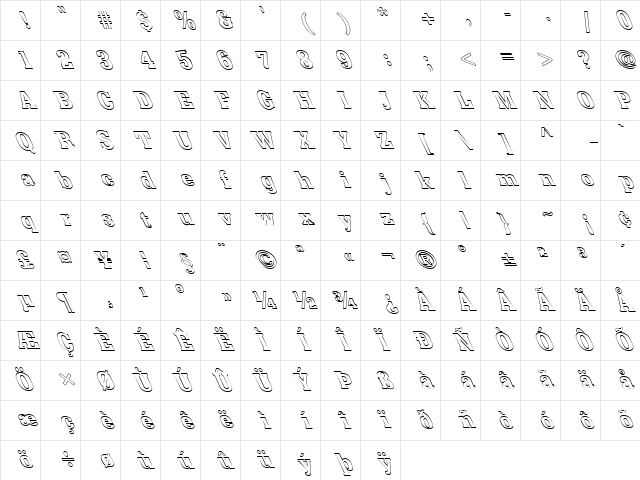
FZ ROMAN 36 HOLLOW LEFTY Normal Free Font
FZ ROMAN 36 HOLLOW LEFTY Normal
Complete FZ ROMAN 36 HOLLOW LEFTY Normal glyph index. Displaying only characters natively supported by FZ ROMAN 36 HOLLOW LEFTY Normal font.
Design Context for FZ ROMAN 36 HOLLOW LEFTY
FZ ROMAN 36 HOLLOW LEFTY is a composed and adaptable typeface that performs quietly and consistently across a wide range of design contexts.